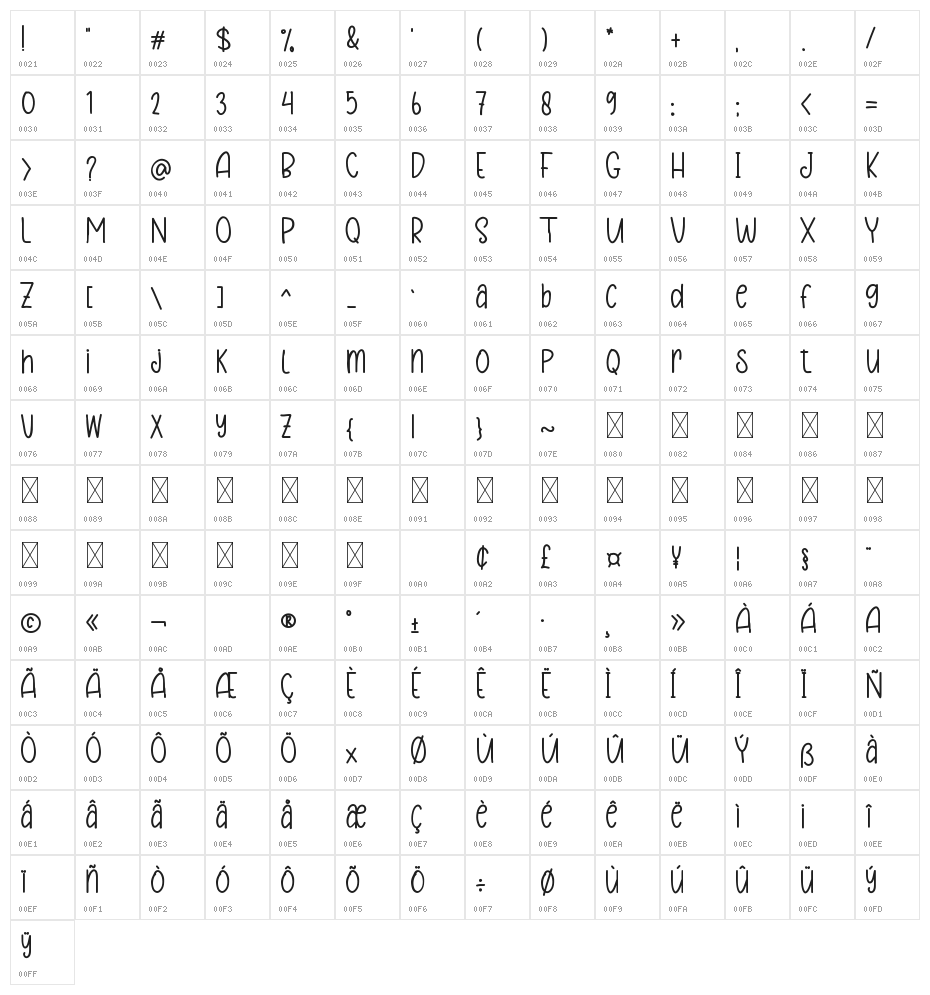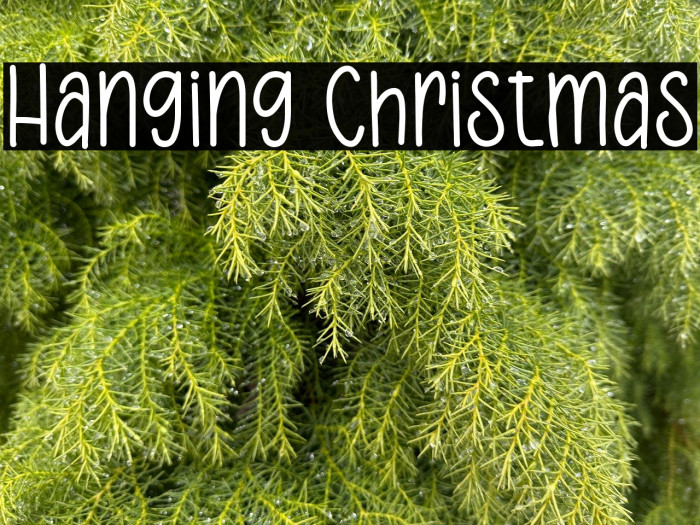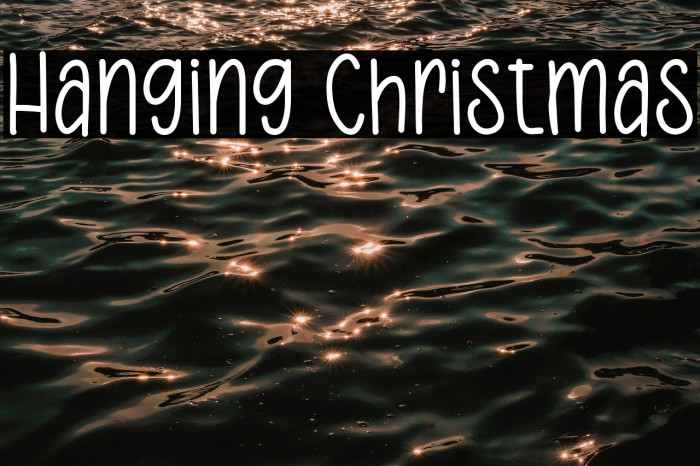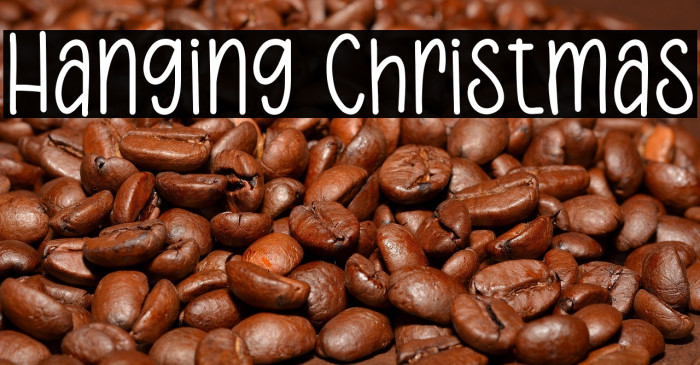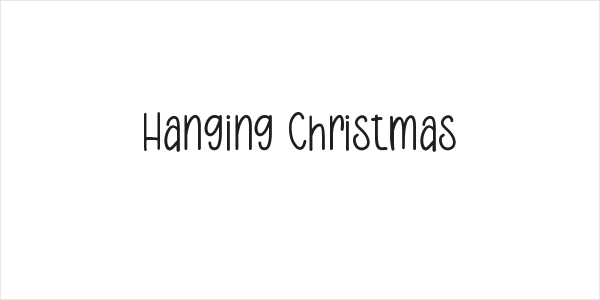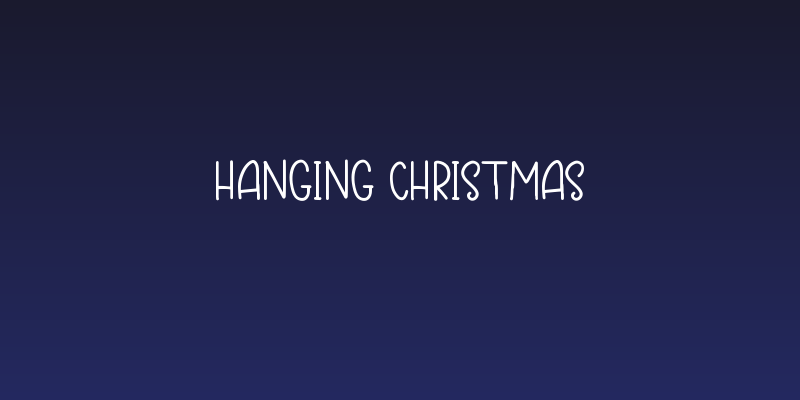
Hanging Christmas Font
Hanging Christmas Description
This playful and whimsical font features a handwritten style with a casual, friendly appearance. The characters are slightly elongated with rounded edges, giving it a warm and inviting feel. The uppercase and lowercase letters maintain a consistent flow, while the numerals and special characters complement the overall design. The font's informal nature makes it suitable for creative and fun projects, adding a touch of personality and charm.
| Proposed Projects | Ideal for greeting cards, children's books, party invitations, and playful branding. |